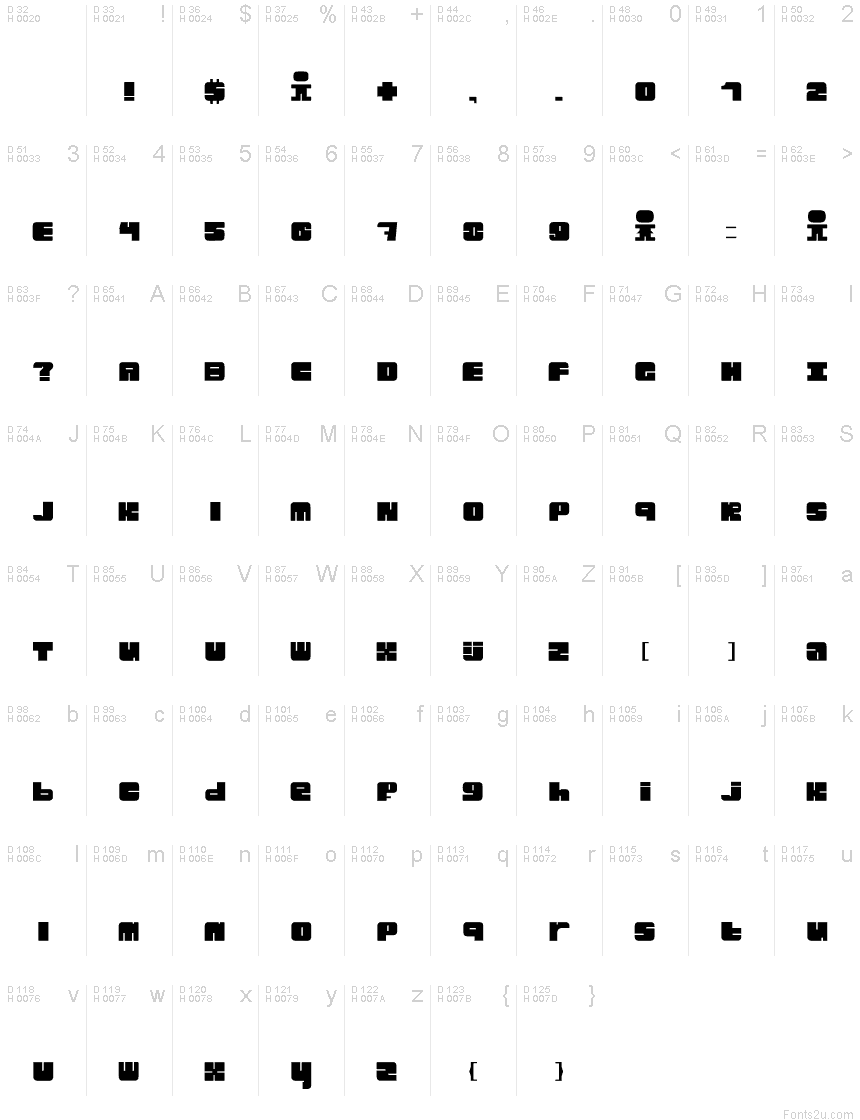
New Blockster
New Blockster font by Jordie van Rijn of Typoware is a free groovy display typeface with bold, blocky forms and tight inner cuts that feel like sci‑fi architecture. Its chunky, squared shapes and rounded corners create a solid, mechanical rhythm that reads clearly even at a distance, while the narrow interior gaps add a subtle sense of movement and energy. Pair New Blockster with a clean, unobtrusive sans serif in smaller sizes to keep attention on its hefty, futuristic letters.
Using New Blockster, this free font shines on gaming logos, sci‑fi posters, nightclub flyers, event branding, streaming overlays, and bold social media graphics. The compressed counters and consistent verticals give headlines a strong, unified silhouette that holds up on screens and in print. Its heavy weight thrives at large sizes, where the squared forms can really dominate the layout without sacrificing legibility.